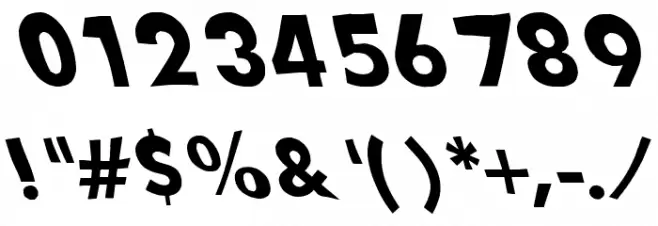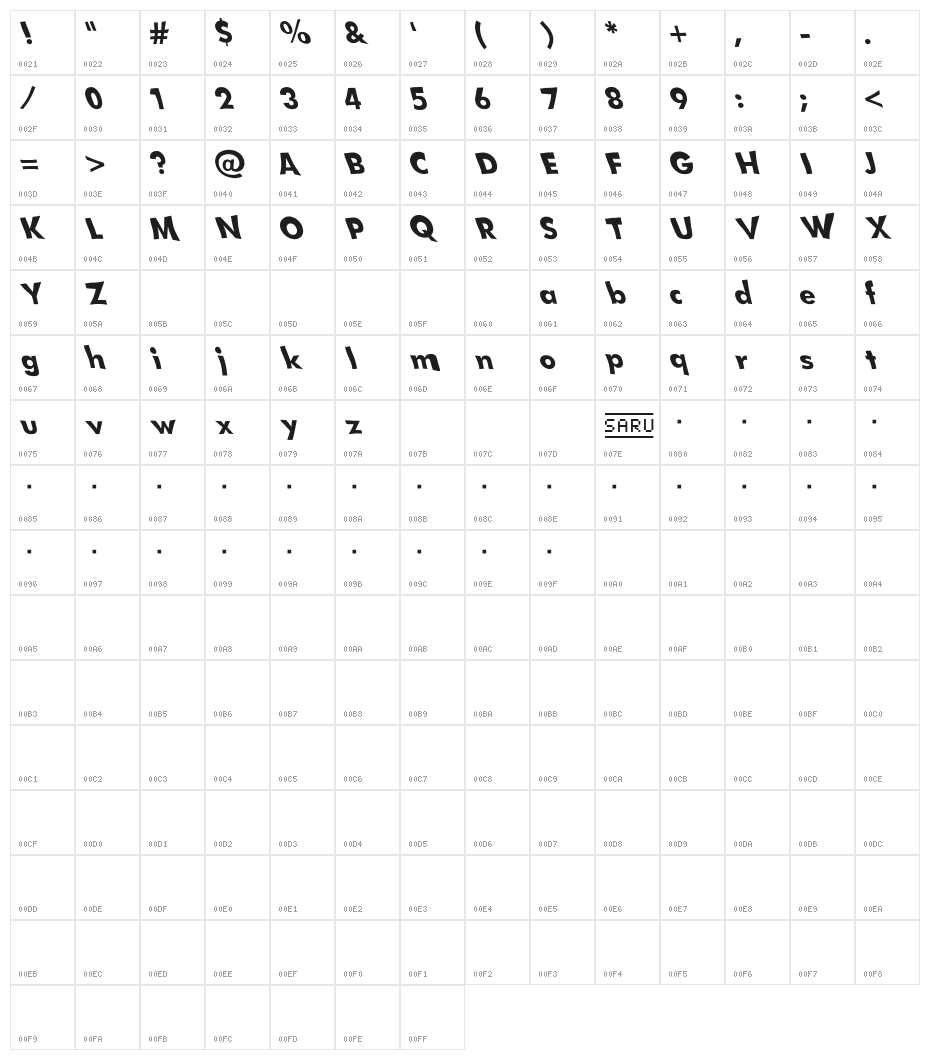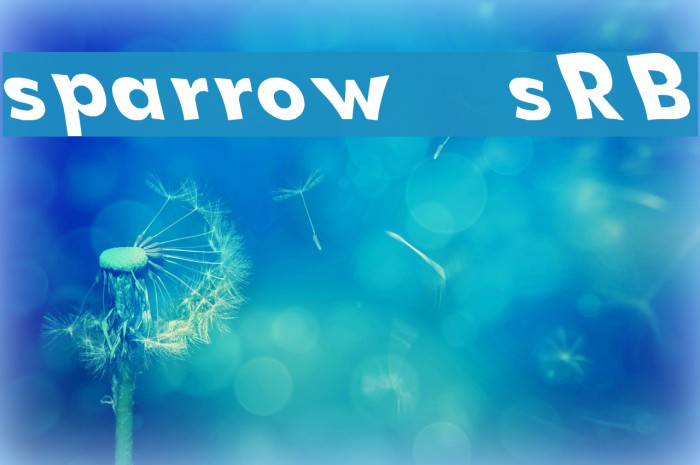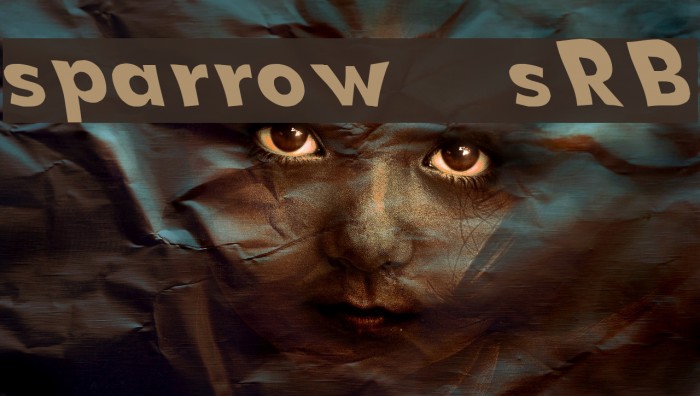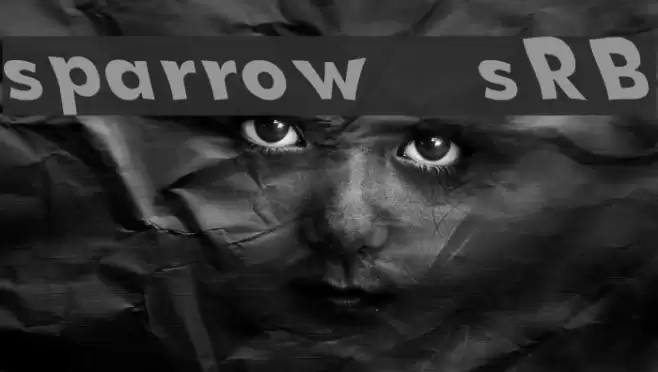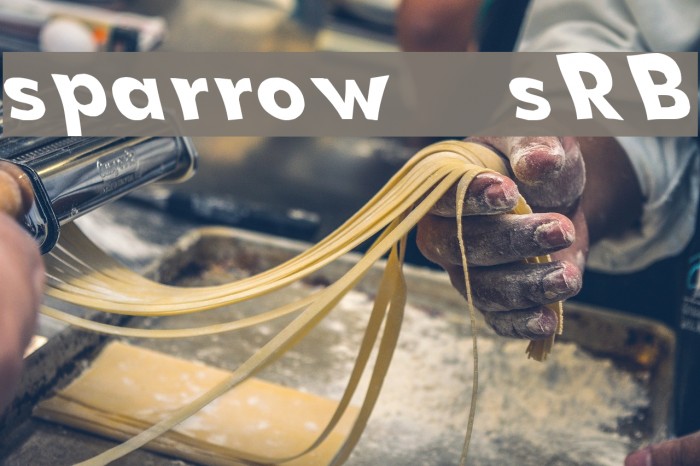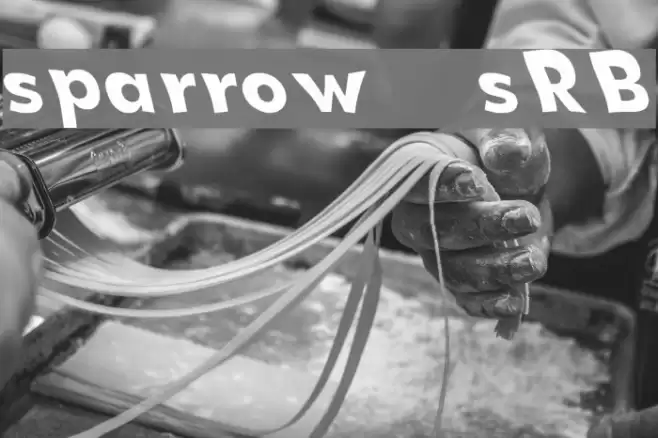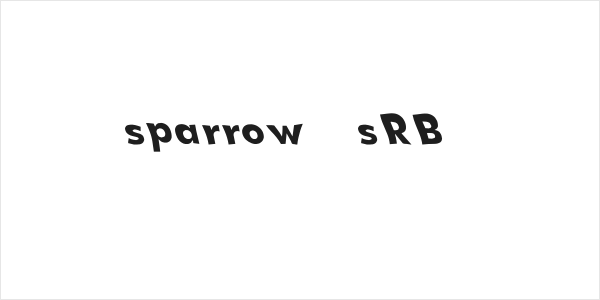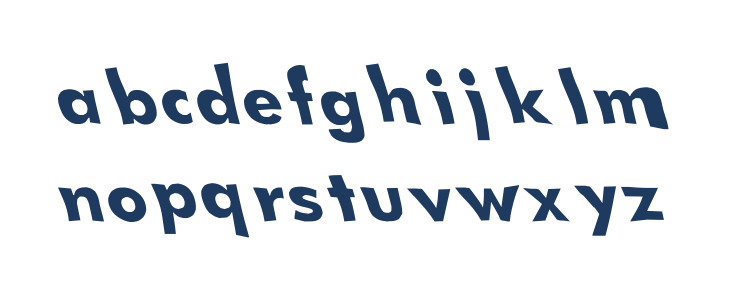
sparrow [sRB] Font
sparrow [sRB] Description
This font features a playful and dynamic style, characterized by its bold and slightly irregular letterforms. The uppercase letters exhibit a quirky, almost whimsical appearance with varying stroke widths that add a sense of movement and energy. The lowercase letters maintain this lively aesthetic, with rounded edges and a slightly condensed form that enhances readability while retaining a unique charm. The numerals are bold and consistent with the overall style, ensuring they stand out clearly. Special characters are designed with the same playful flair, making them suitable for creative and informal contexts. This font's distinctive style makes it ideal for projects that require a fun and engaging visual element.